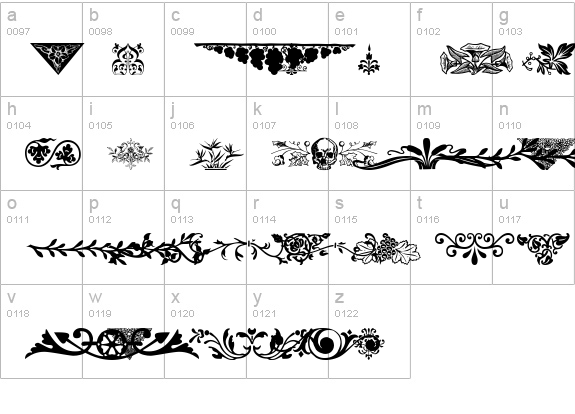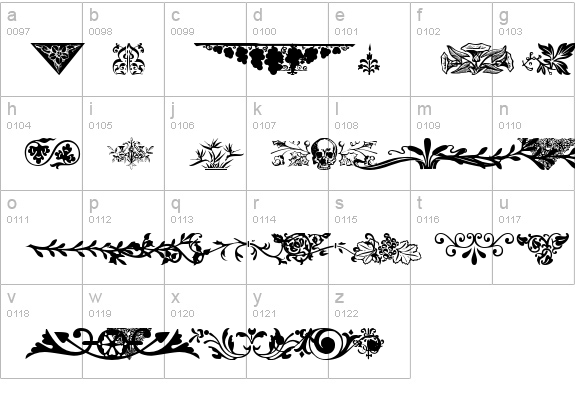
The Ornamental Decoration font is a beautifully crafted typeface that exudes elegance and sophistication. With its intricate details and ornate design elements, this font is perfect for adding a touch of luxury to your projects. Whether you're working on invitations, posters, or branding materials, Ornamental Decoration will make a statement and captivate your audience. What sets this font apart is not only its stunning aesthetics but also its versatility. It can be used for both formal and creative projects, making it a must-have in any designer's toolkit. The elaborate swirls and flourishes of Ornamental Decoration add a touch of whimsy and charm to any design, making it a truly unique and eye-catching choice. Best of all, Ornamental Decoration is available for free download at FontsMarket.com. This means that you can easily access this exquisite font and use it in your projects without any cost. So why wait? Add a touch of sophistication and flair to your designs with Ornamental Decoration today!